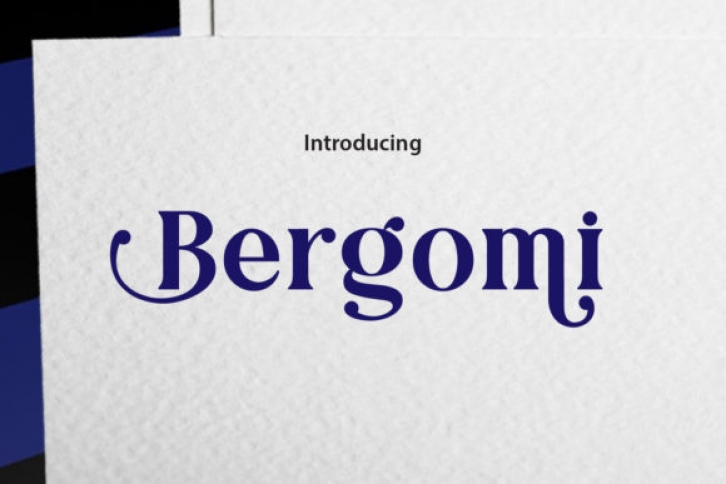
Bergomi is a serif font that looks bold, yet sophisticated and will be particularly adept when used in logos, branding, packaging design, and much more. Bergomi is PUA encoded which means you can access all of the glyphs and swashes with ease! It features a varying baseline, smooth lines, gorgeous glyphs and stunning alternates. This stylish designed serif font is a true must-have.